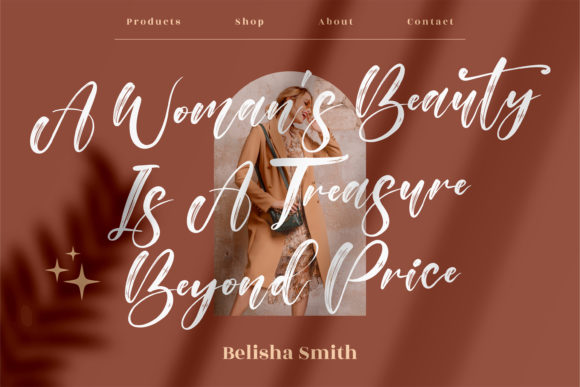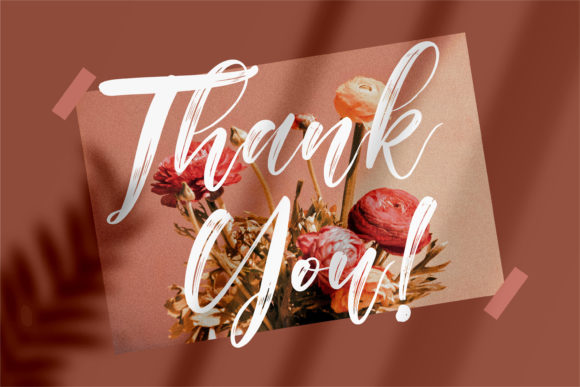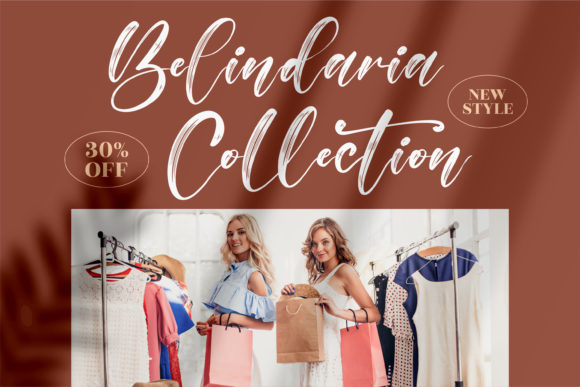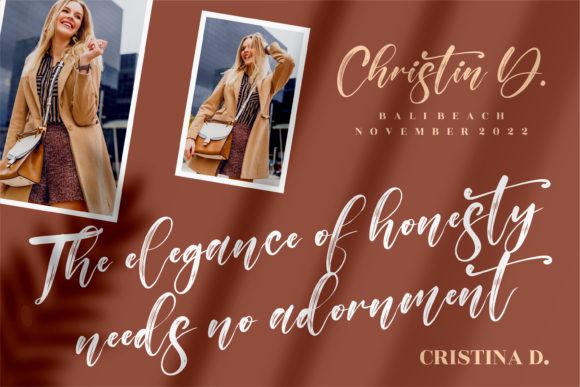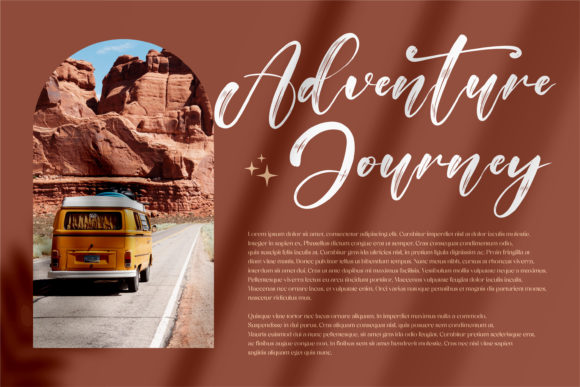
About Alisabela Brushley Font
Alisabela Brushley is a stylish and brushed script font. Fall for its ravishing style and use it to create gorgeous wedding invitations, beautiful stationary art, eye-catching social media posts, and much more!